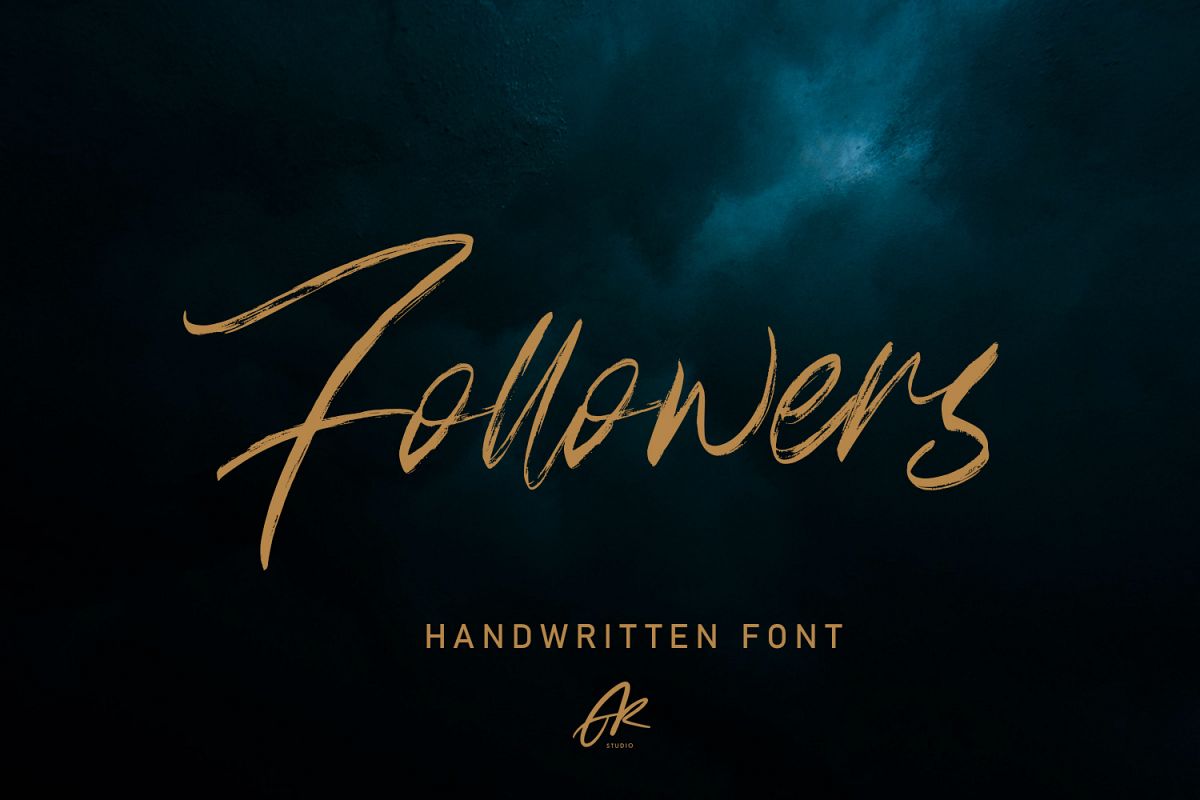
Follower Handwritten Brush Font
Followers is a textured brush font, a contemporary approach to design, naturally handmade and containing underscores, alternates and ligatures that will make your design more attractive. Suitable for use in title design such as clothing, invitations, book tittles, stationery designs, quotes, branding, logos, greeting cards, t-shirts, packaging designs, posters and more.Features : • Character Set A-Z • Numerals & Punctuations (OpenType Standard) • Accents (Multilingual characters) • Ligature • AlternateI really hope you enjoy it - comments and likes are always welcome and accepted: I love followers! Don't hesitate to send a message if you have a problem or question.